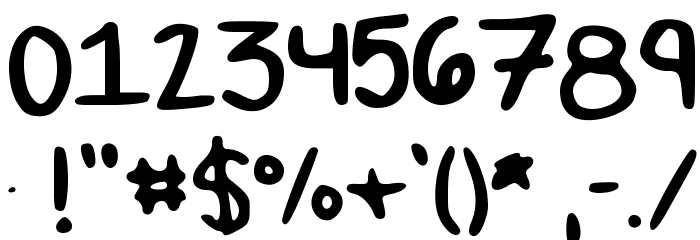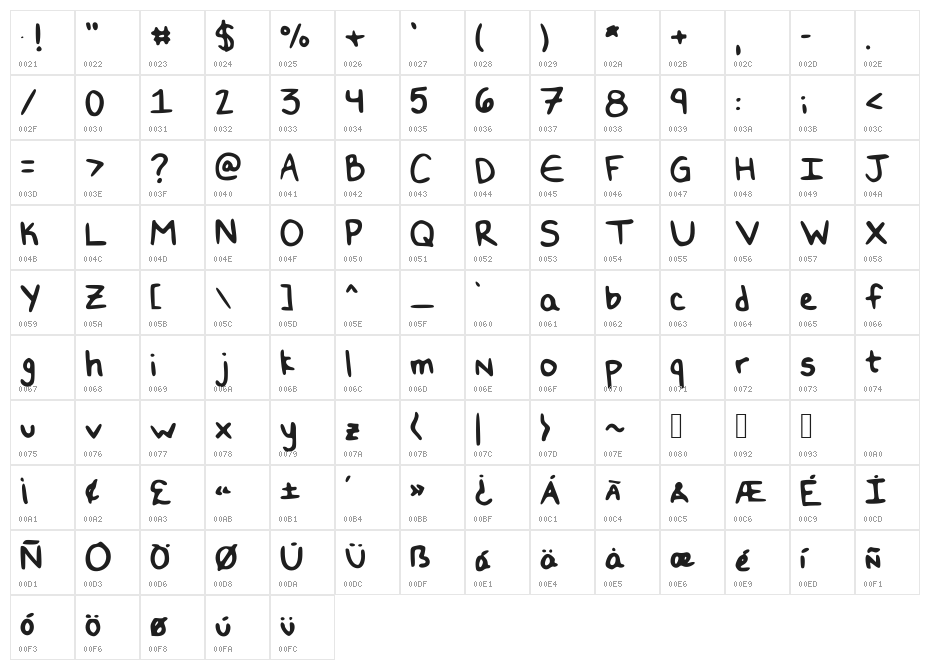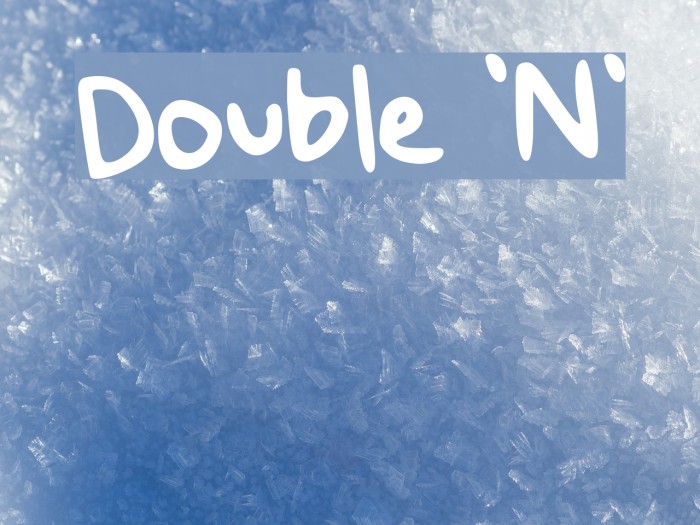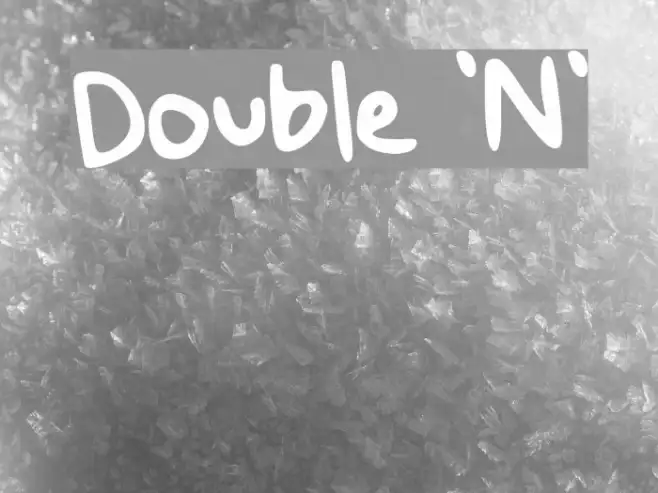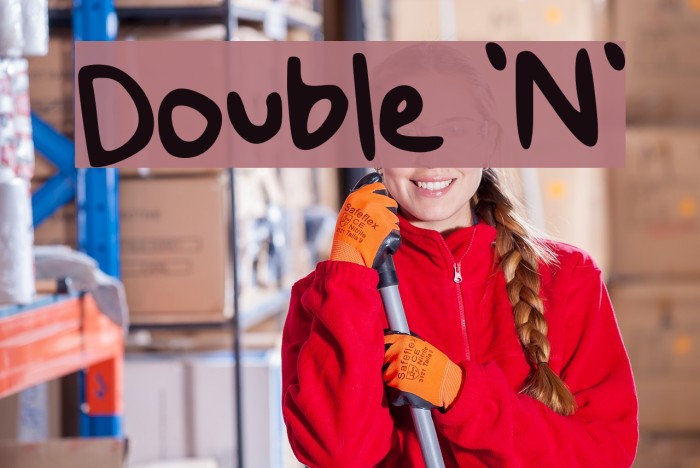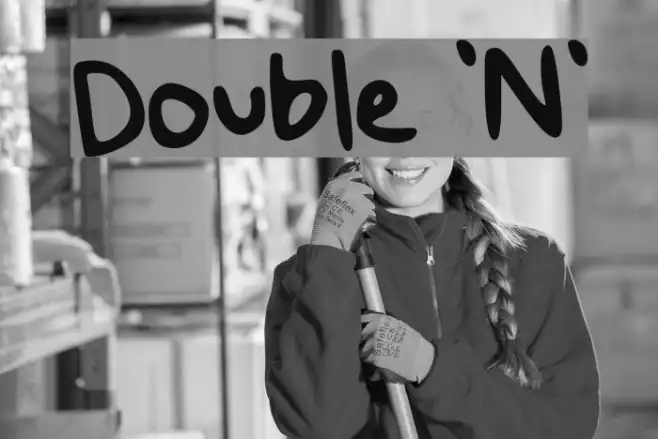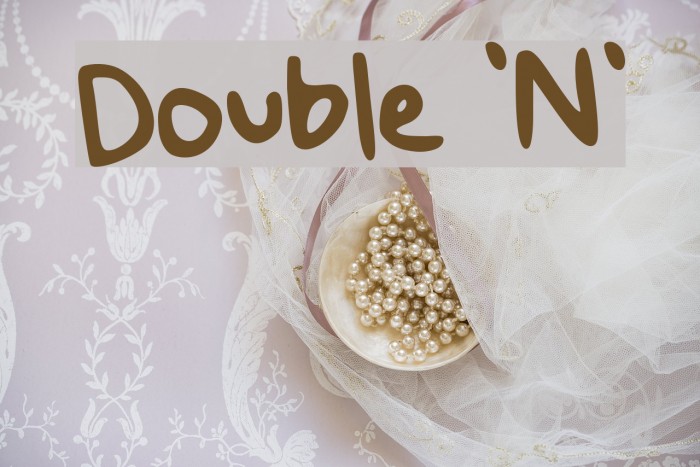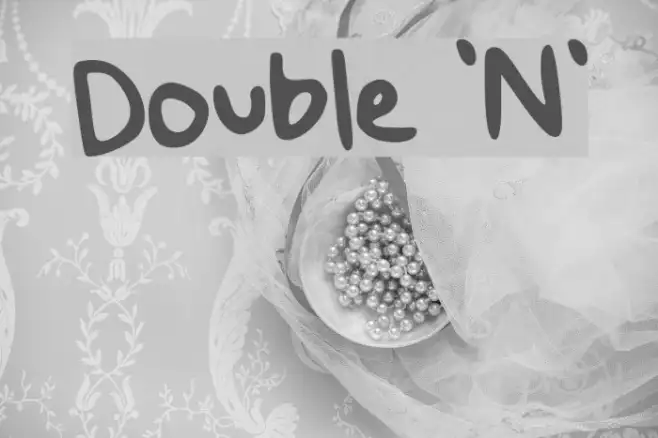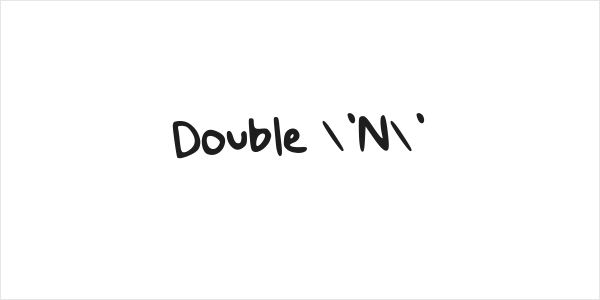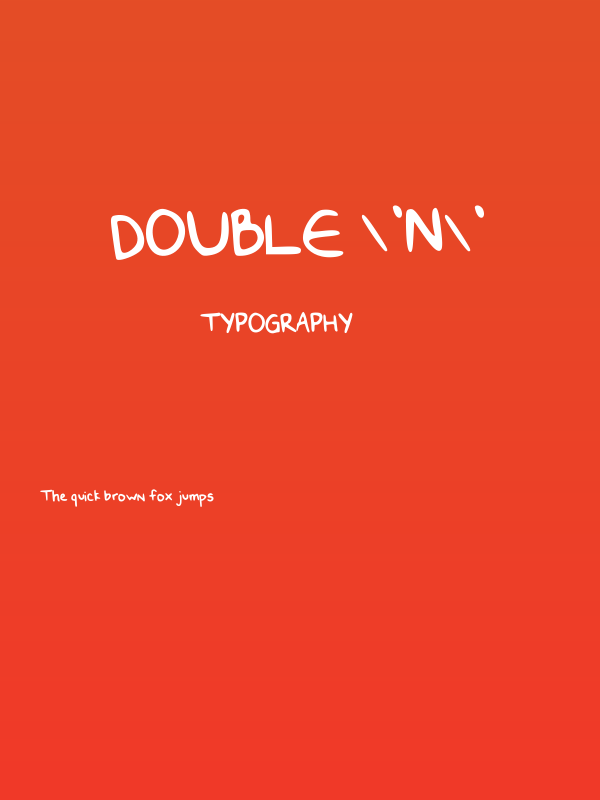
Double 'N' Font
Double 'N' Description
This playful and bold font features a handwritten style with a casual and friendly appearance. The characters are rounded and slightly irregular, giving them a whimsical and approachable feel. The uppercase and lowercase letters maintain a consistent style, with a slight tilt that adds to the informal vibe. The numbers and special characters are designed to match the overall aesthetic, making this font versatile for various creative projects. Its unique charm makes it suitable for designs that aim to convey warmth and personality.
| Proposed Projects | Ideal for children's books, greeting cards, playful branding, and social media graphics. |